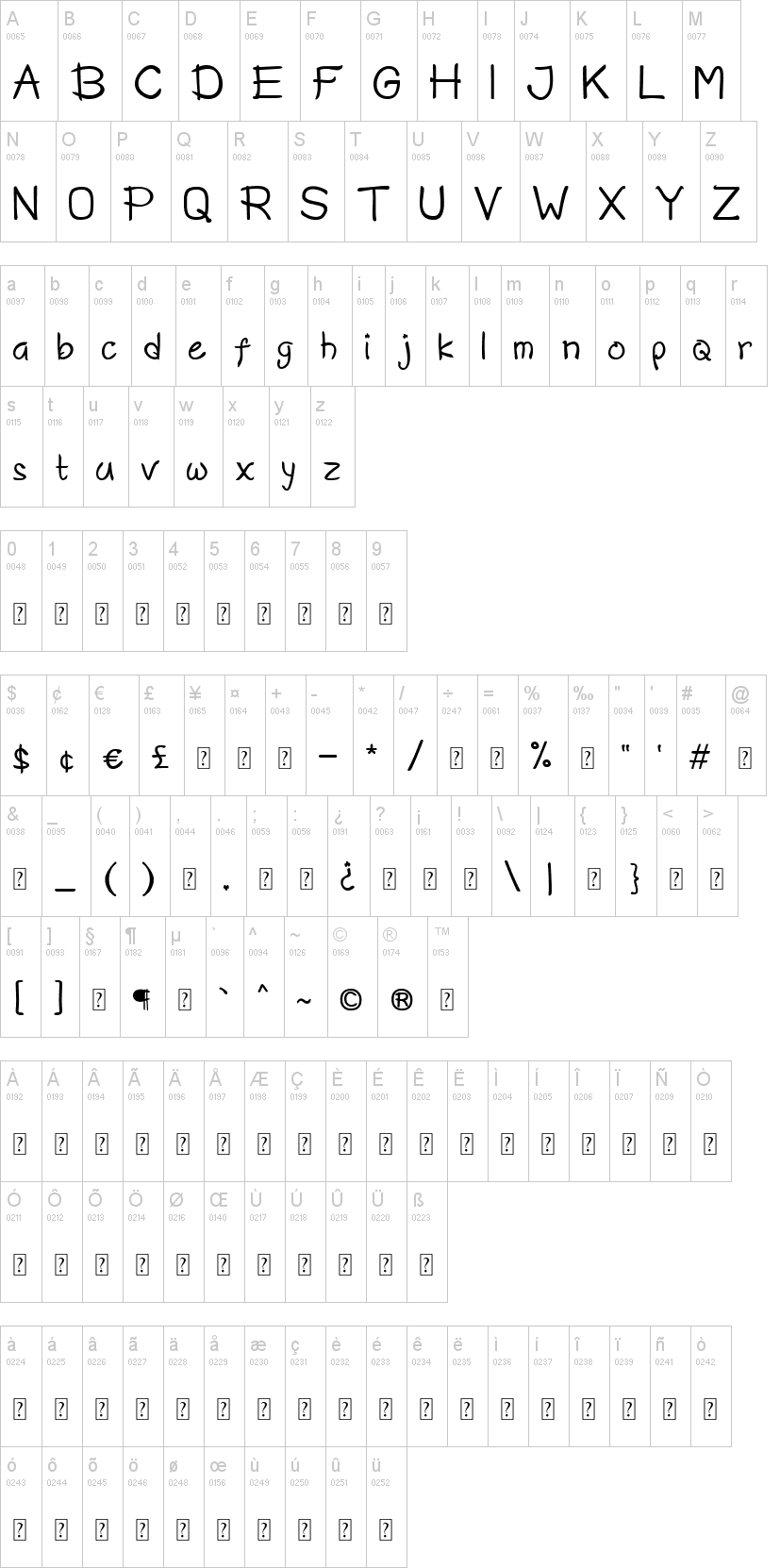
Note of the authorThis font is for you and please use it. This font is suitable for writing letters, lyrics, logos and others. Suitable for pouring the contents of the heart.
But this font is not perfect, and you only get one Super Banana font, Raguler.